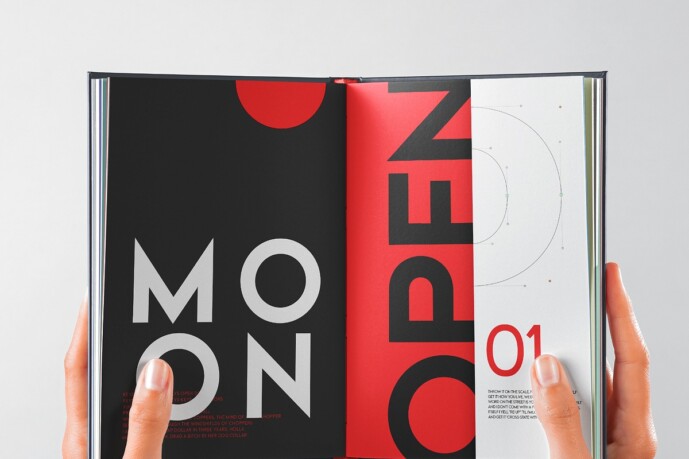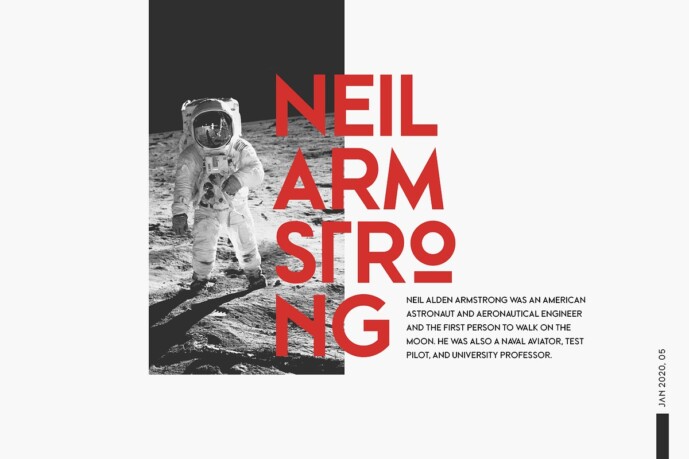
Beckman Variable Font
Designer: FactoryType
Beckman Variable Font is available now, a sleek, minimalist font family that blends geometric and clean design elements for a contemporary look with unlimited possibilities. It offers modern, polished capital letters that enhance versatility. Beckman is the perfect choice to elevate your headlines, branding, logos, posters, magazines, and more.